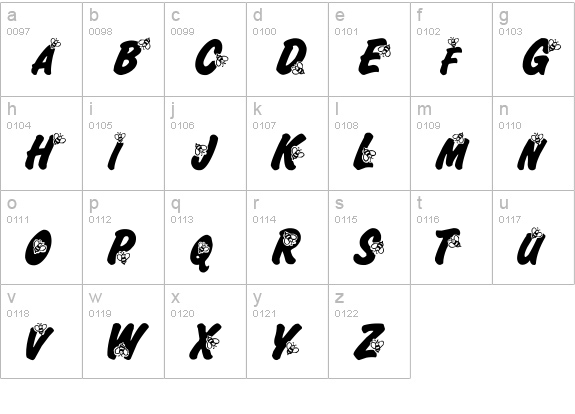
BuzzBuzzBuzz Font Details
Introducing BuzzBuzzBuzz font, a whimsical and playful typeface that will bring a buzz of creativity to your projects. With its quirky and fun design, this font is perfect for adding a touch of charm to your designs. The BuzzBuzzBuzz font features unique and eye-catching letterforms that will make your text stand out. Best of all, the BuzzBuzzBuzz font is available for free download at FontsMarket.com. You can easily access this delightful font and start incorporating it into your projects right away. Whether you're designing invitations, posters, or social media graphics, the BuzzBuzzBuzz font will add a cheerful and energetic vibe to your work. Don't miss out on this free font - download it now and let your creativity buzz with excitement!